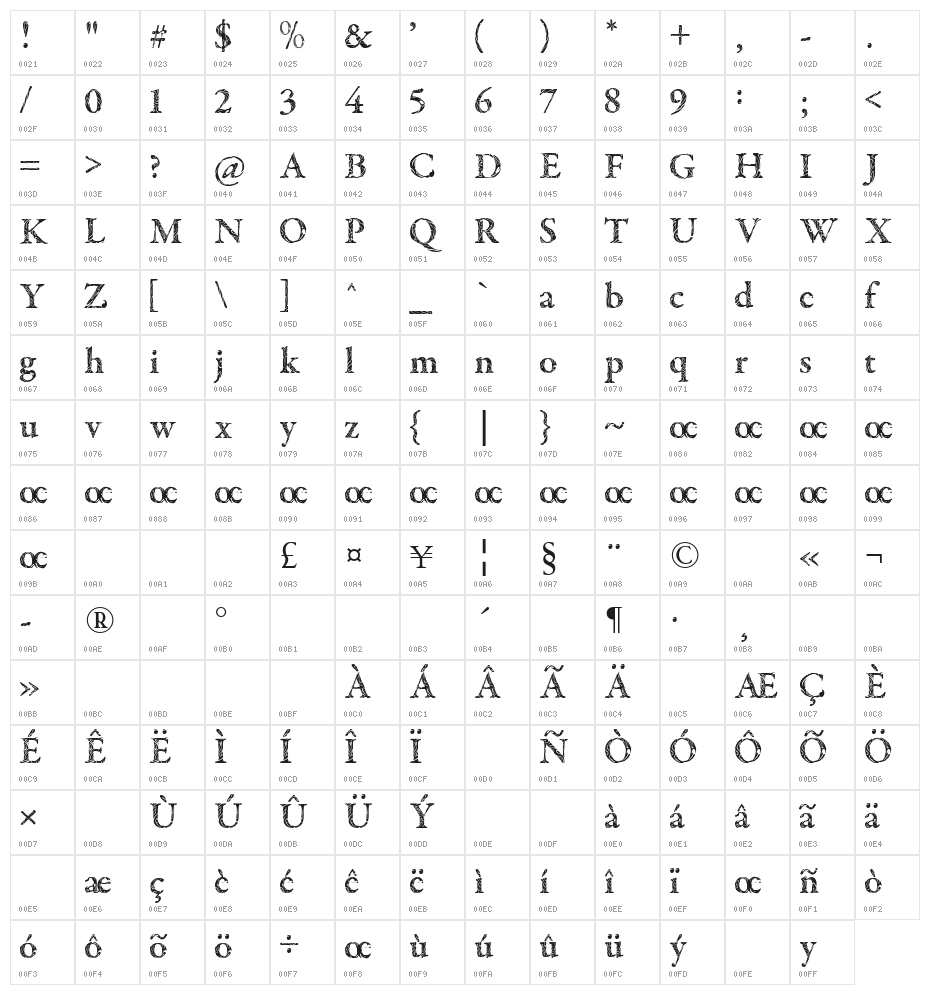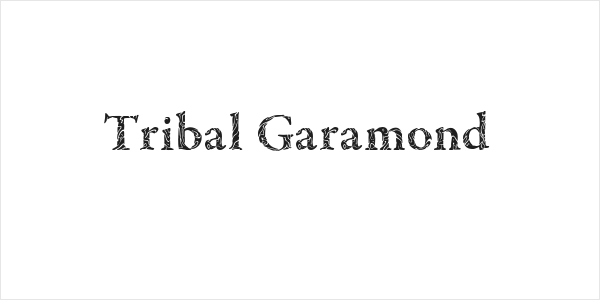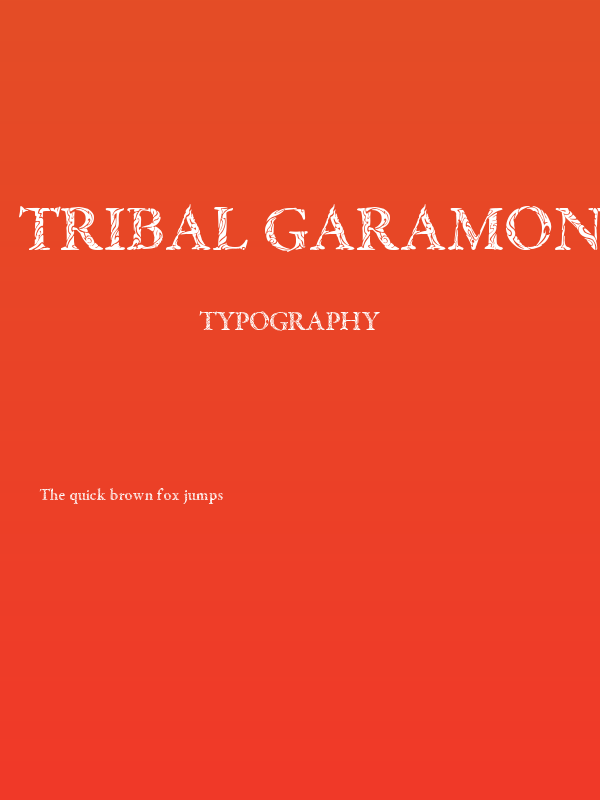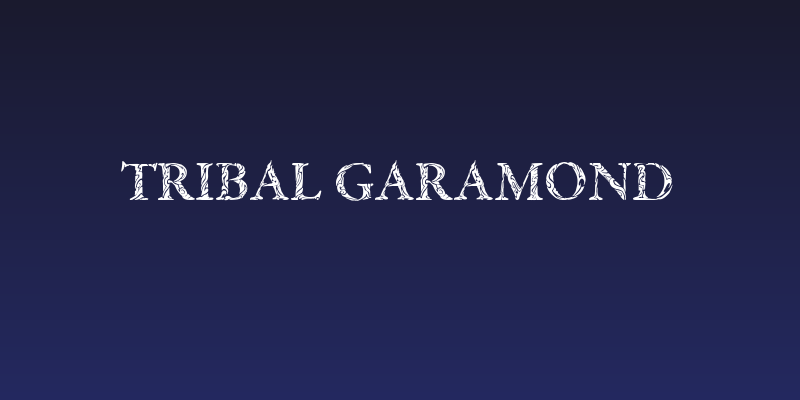
Tribal Garamond Font
Tribal Garamond Description
This font features a unique and intricate design that combines traditional serif elements with tribal-inspired patterns. Each character is adorned with decorative swirls and lines, creating a textured and artistic appearance. The uppercase and lowercase letters maintain a classic serif structure, while the embellishments add a modern twist. Numbers and special characters are equally detailed, ensuring consistency across the typeface. The overall look is bold and eye-catching, making it suitable for projects that require a distinctive and creative touch.
| Proposed Projects | Ideal for branding, posters, album covers, and any design project that seeks a bold and artistic flair. |